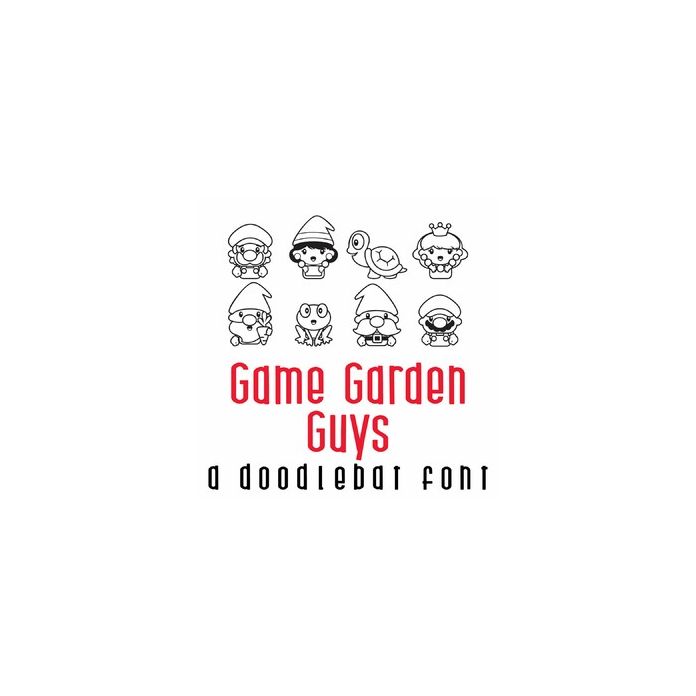
Game Garden Guys Doodlebat Font
This fun doodlebat font features 26 garden guys in gamer style. Perfect for cards, decor, planner stickers, parties, scrapbook pages and more!